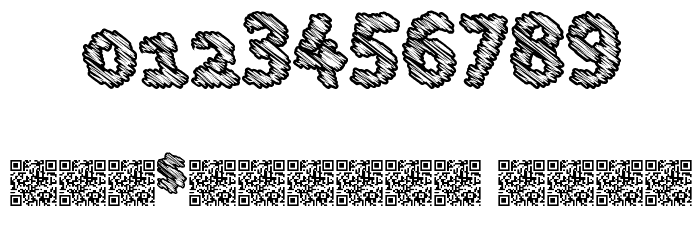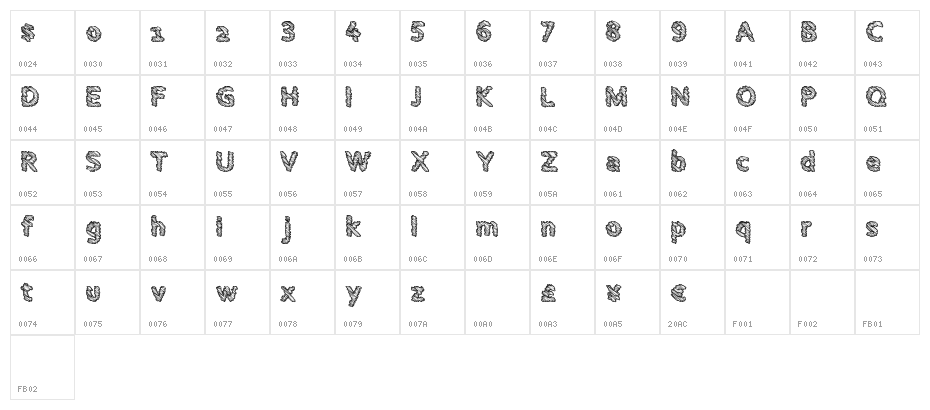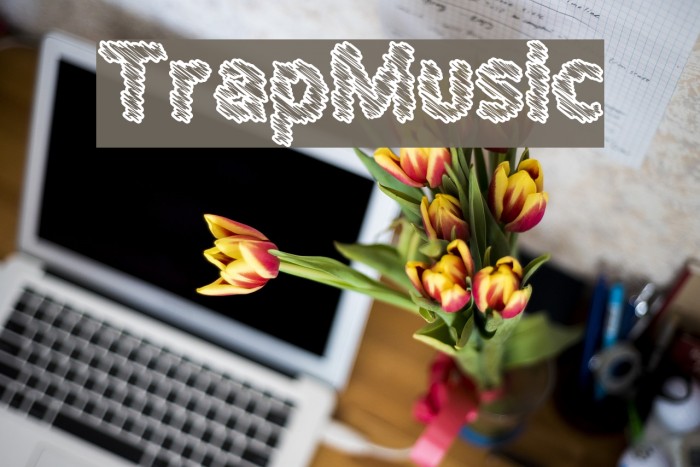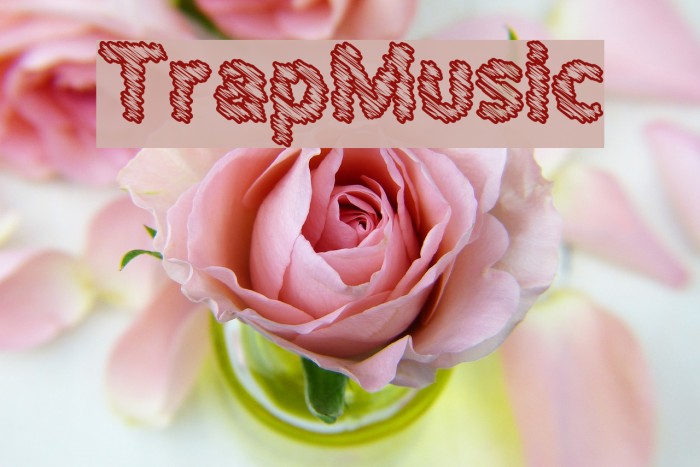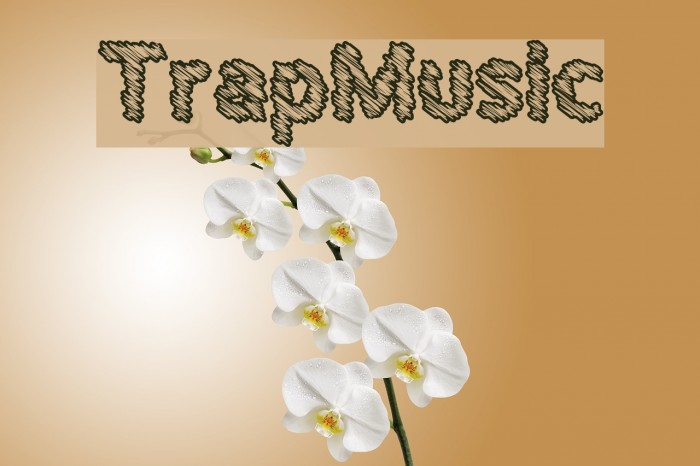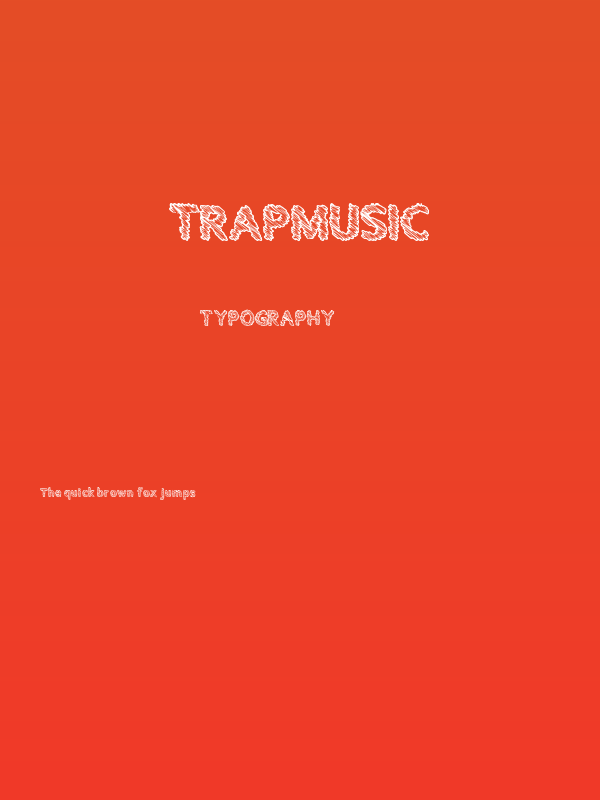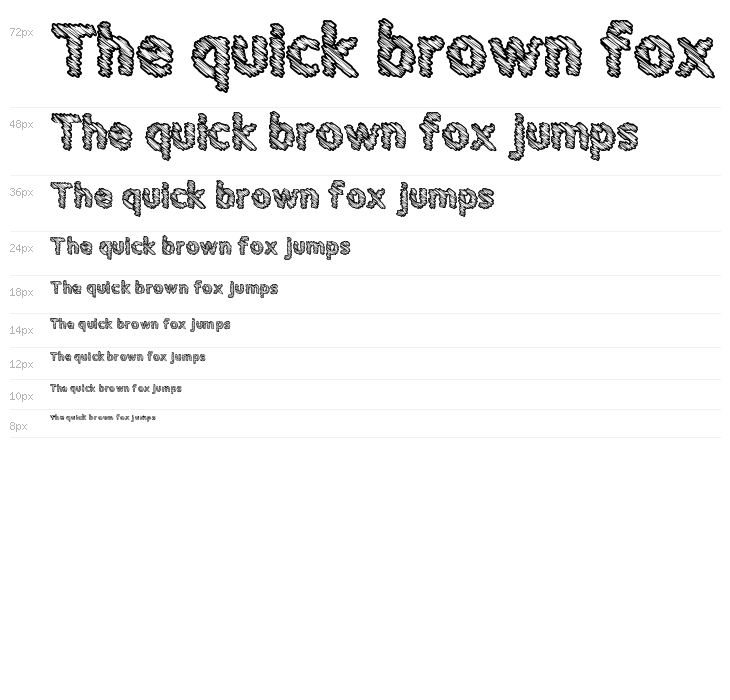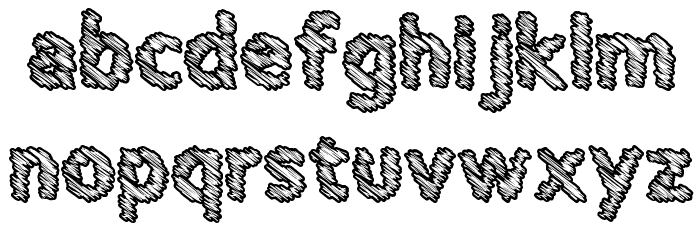
TrapMusic Font
TrapMusic Description
This font features a unique, textured design that resembles hand-drawn or sketched lines, giving it a dynamic and artistic appearance. The characters are bold and slightly irregular, adding to the hand-crafted feel. Each letter and number is filled with a series of diagonal lines that create a sense of depth and movement. The overall look is both playful and edgy, making it suitable for creative projects. The uppercase and lowercase letters maintain a consistent style, while the numerals and special characters complement the alphabet with the same textured effect. This font stands out with its distinctive, illustrative quality, perfect for making a statement.
| Proposed Projects | Ideal for album covers, posters, branding for creative industries, and any project needing a bold, artistic touch. |